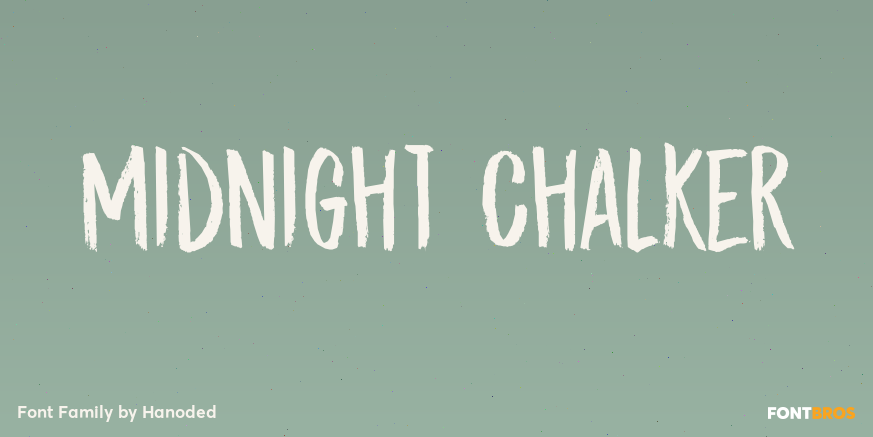
About Midnight Chalker
Midnight Chalker is, well, a chalk(ish) font and it was (for the greater part) created around the midnight hour. That\’s usually when I get my inspiration. Midnight Chalker is a tall, eroded font – all caps, but the upper and lower case differ and can…